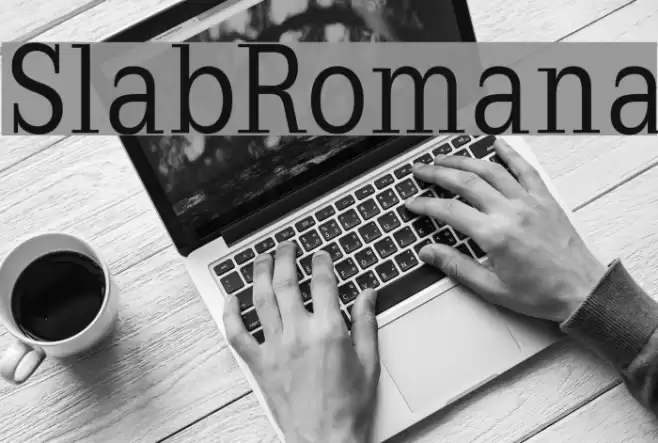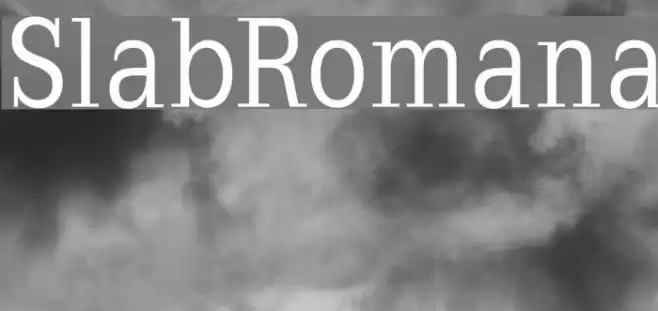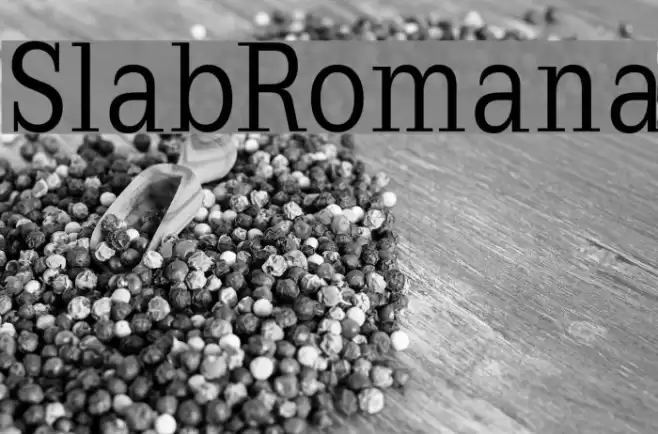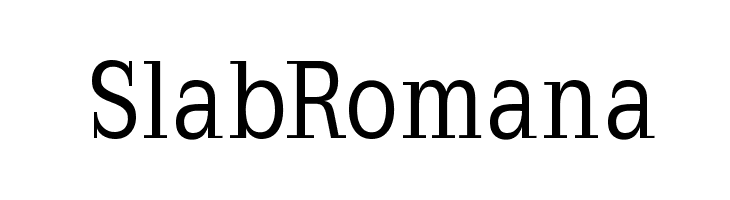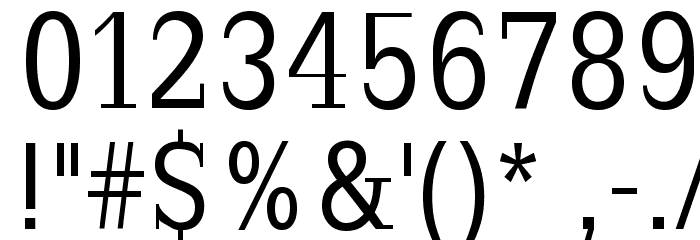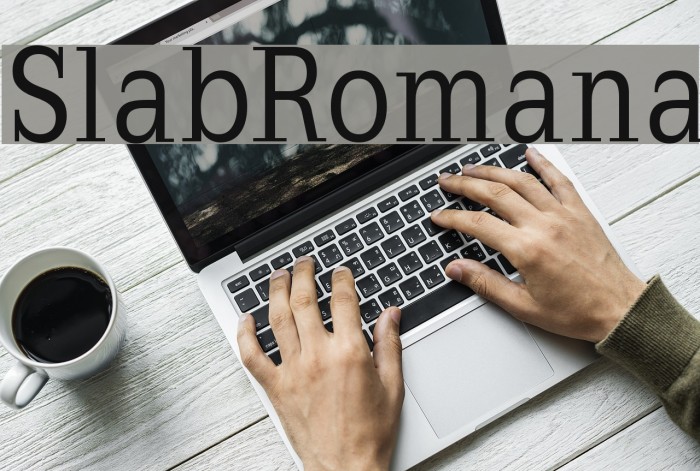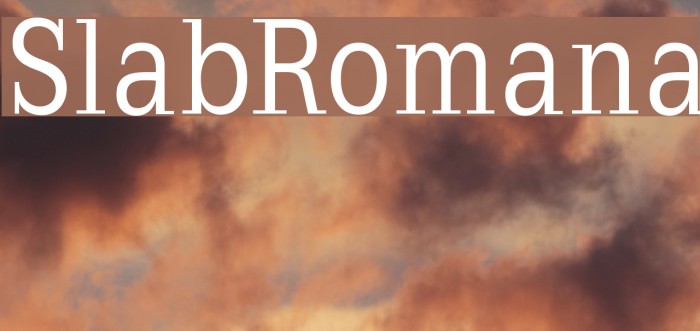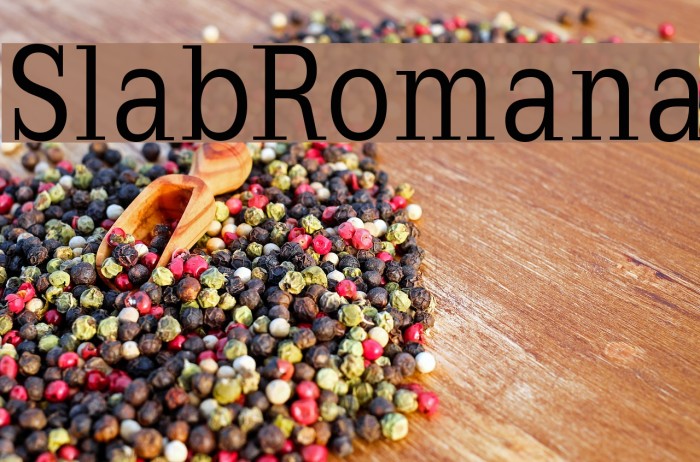
SlabRomana Font
SlabRomana Description
This font features a robust and structured design, characterized by its thick, block-like serifs and uniform stroke widths. The uppercase letters are bold and commanding, while the lowercase letters maintain a consistent and harmonious appearance. The numerals are clear and easily distinguishable, making them suitable for both display and text settings. Special characters are well-defined, adding versatility to the font's usage. The overall impression is one of strength and reliability, making it ideal for projects that require a strong visual impact.
A bold, structured slab serif font with uniform stroke widths and block-like serifs from Serif fonts.
- Proposed Projects: Ideal for headlines, posters, branding, and editorial design where a strong, impactful presence is needed.
- Overall Style: Classic